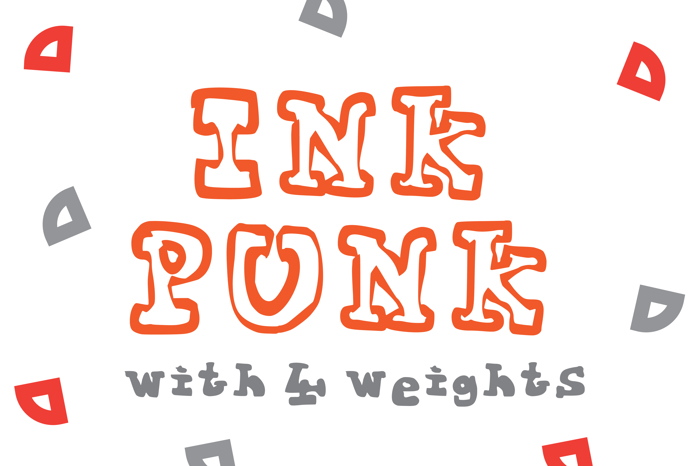
Ink Punk Font
by GraphicsBam
Ink Punk is a Punk font family with 2 styles that was created by GraphicsBam in . It was added to FontSpace on
Hand drawn fat serif font would looks great big! Display font with bags of personality.